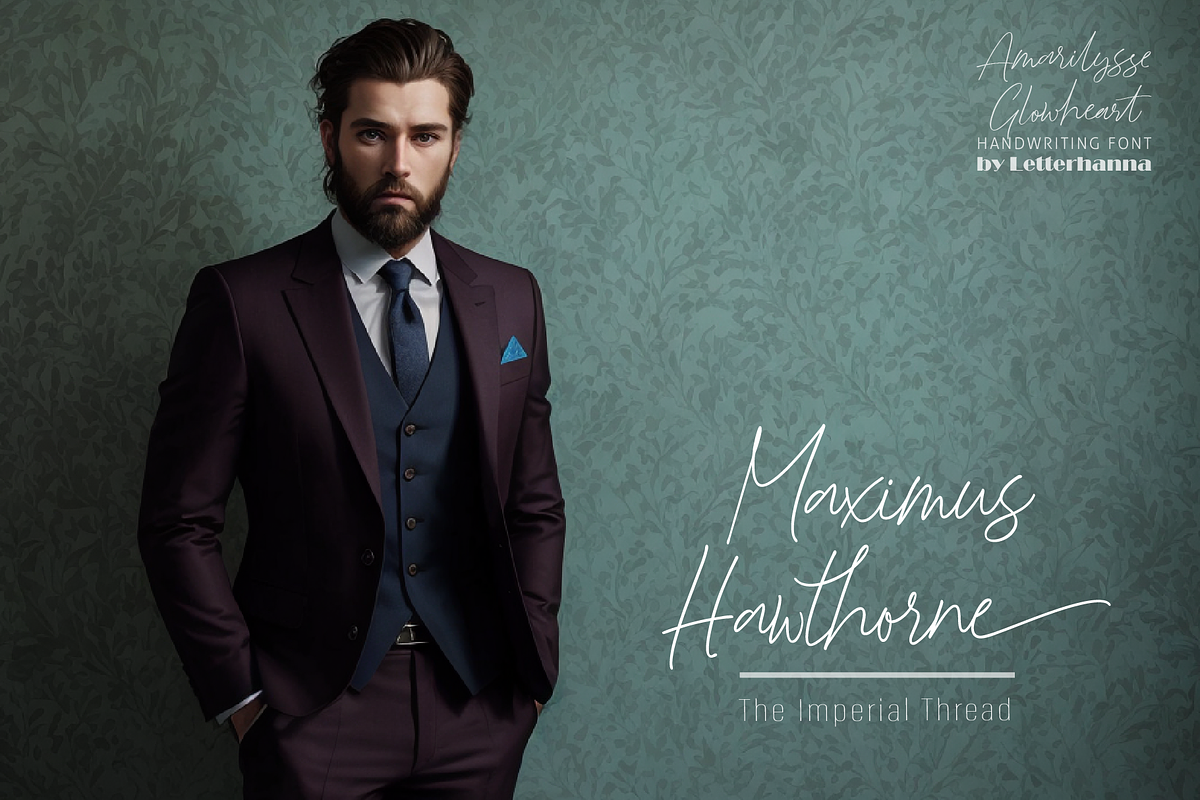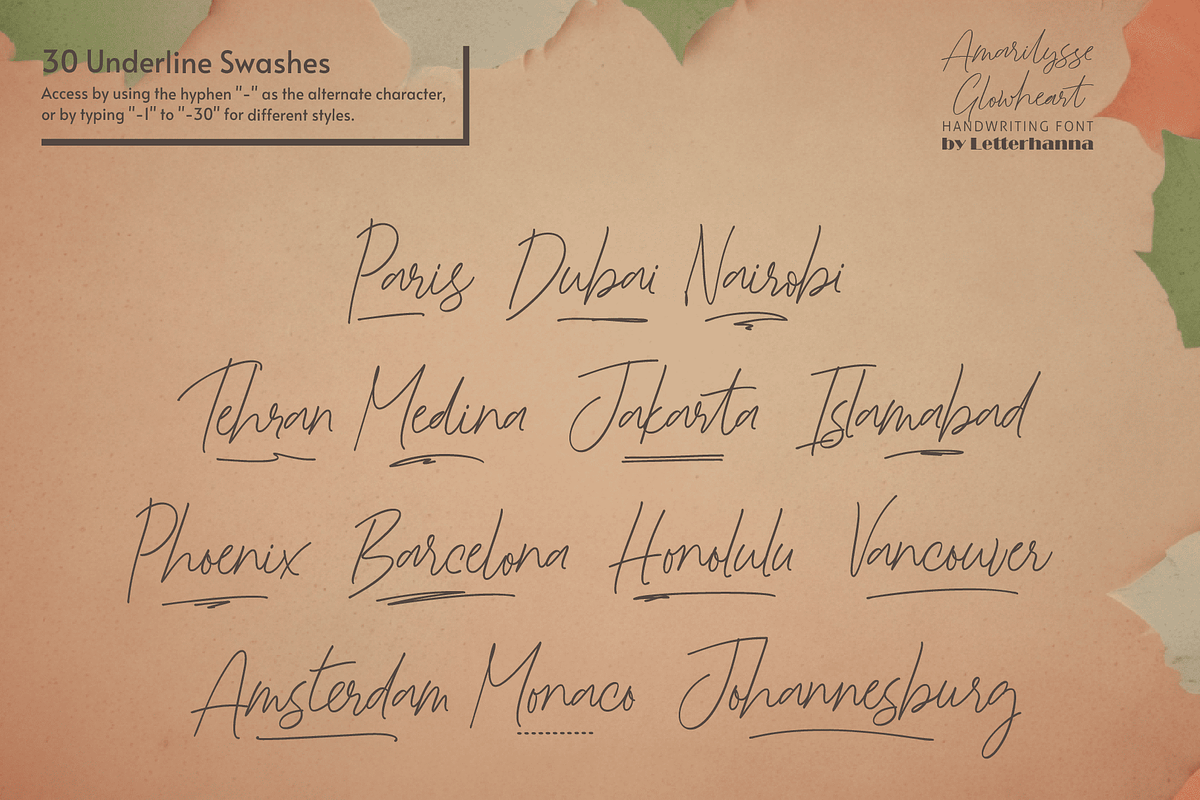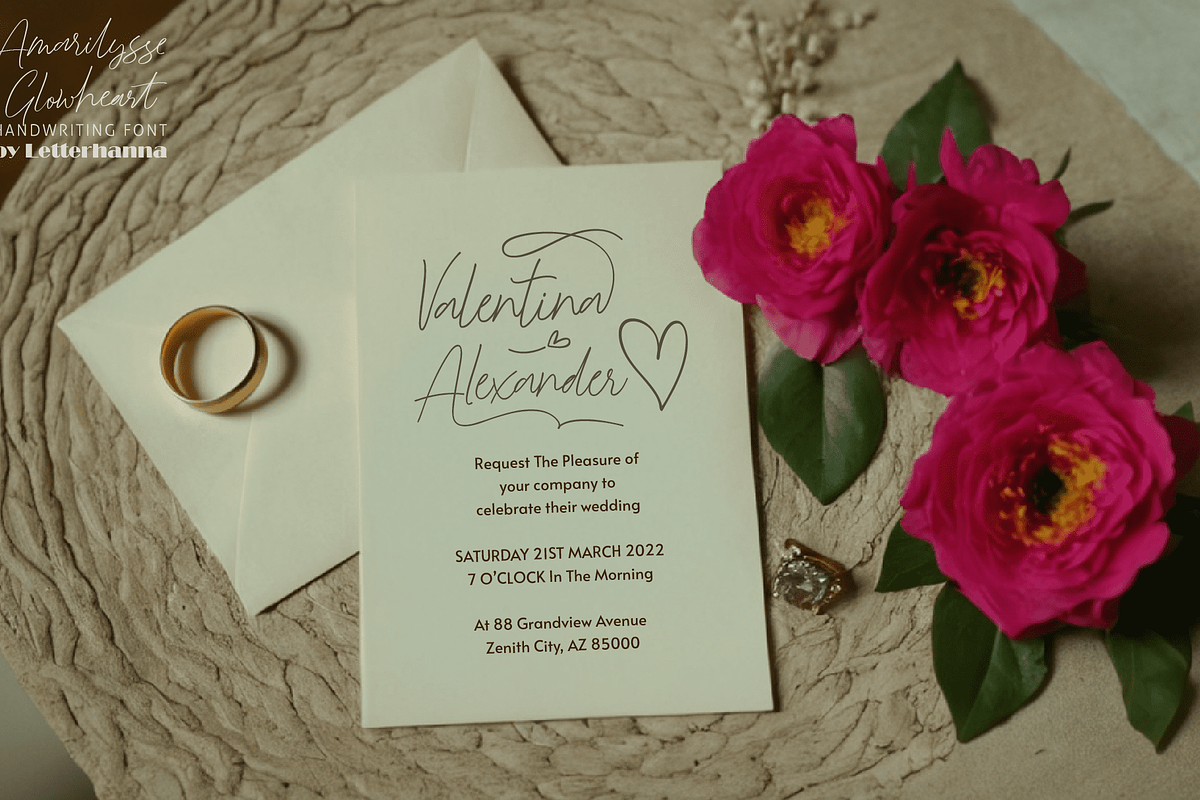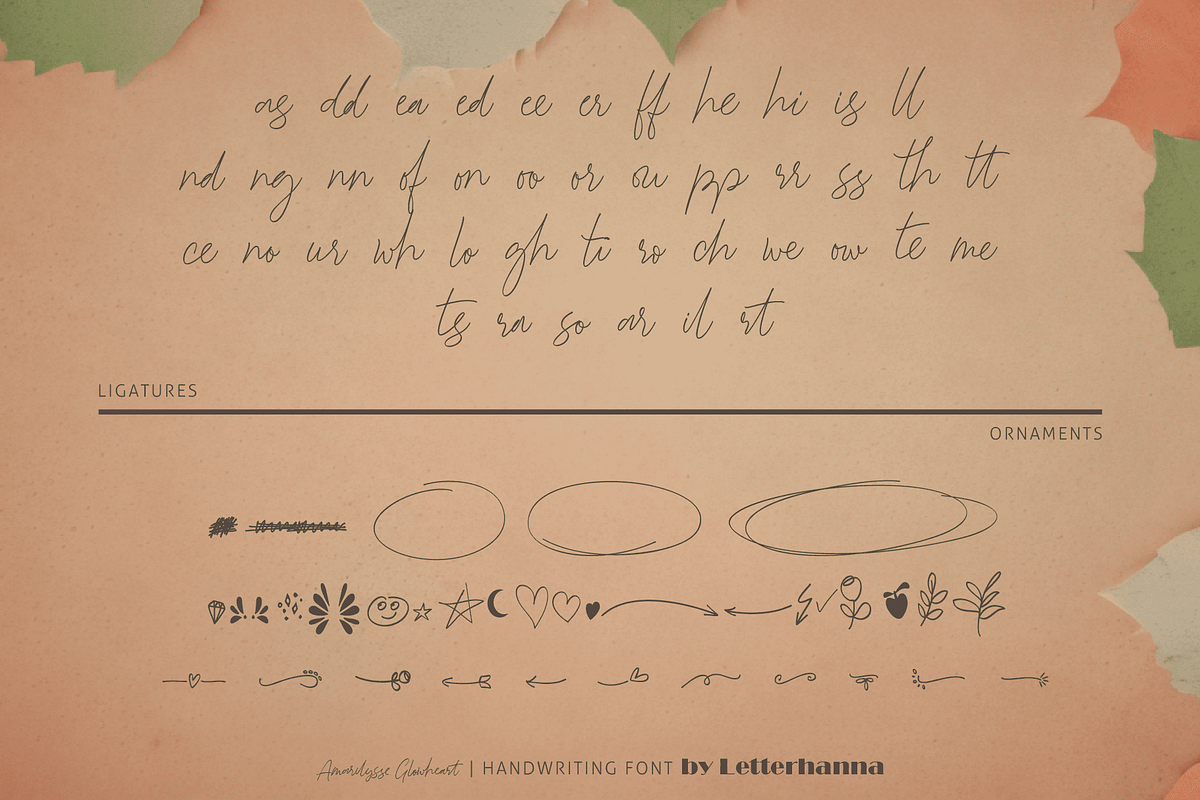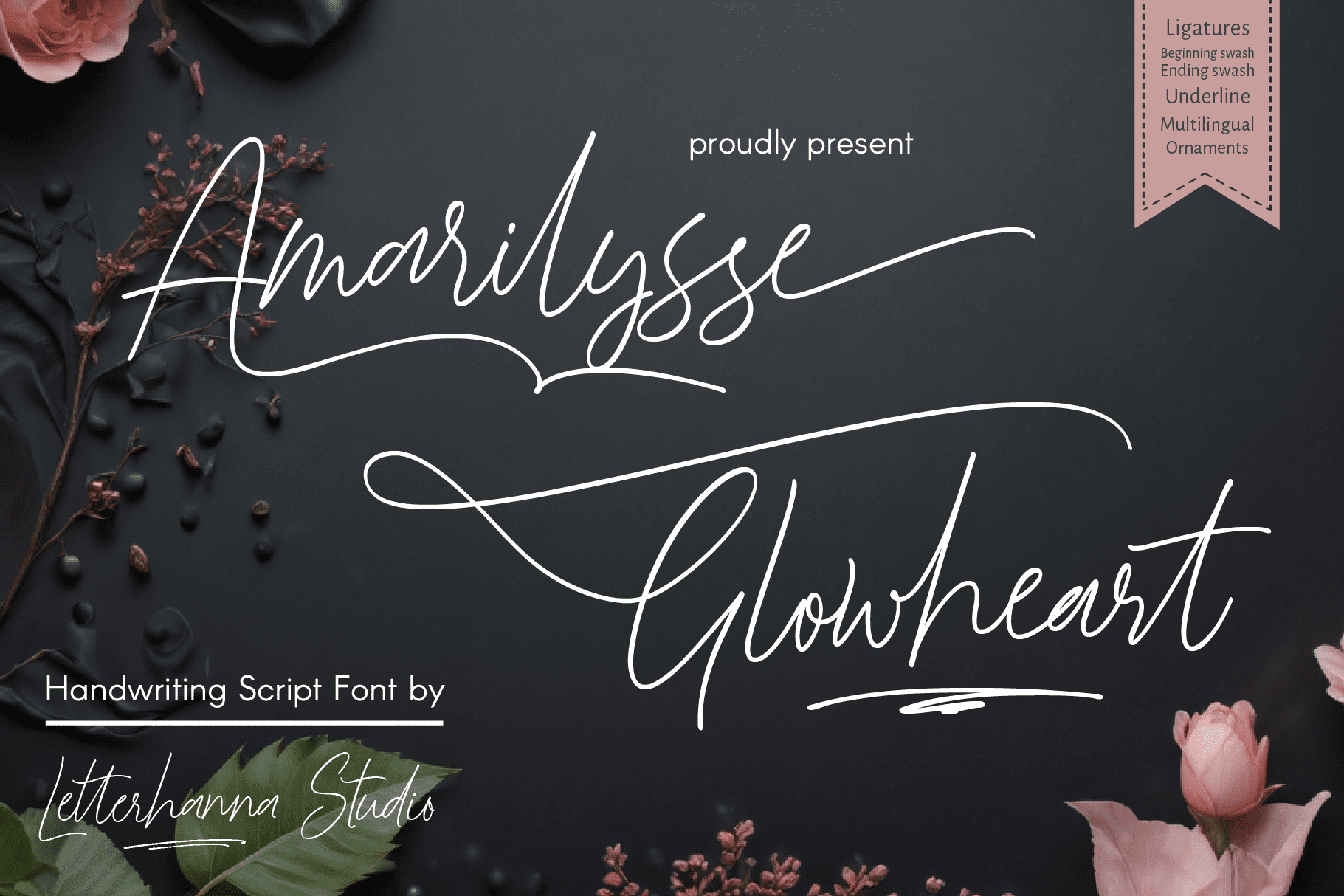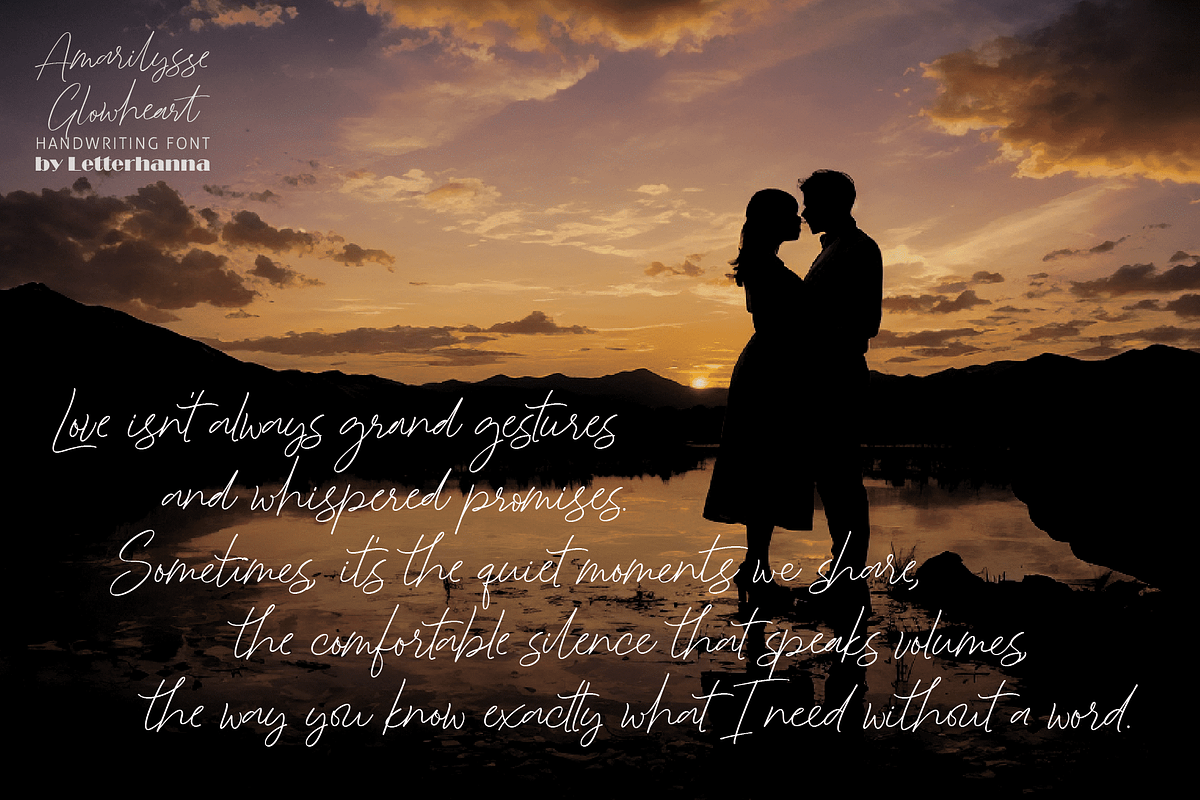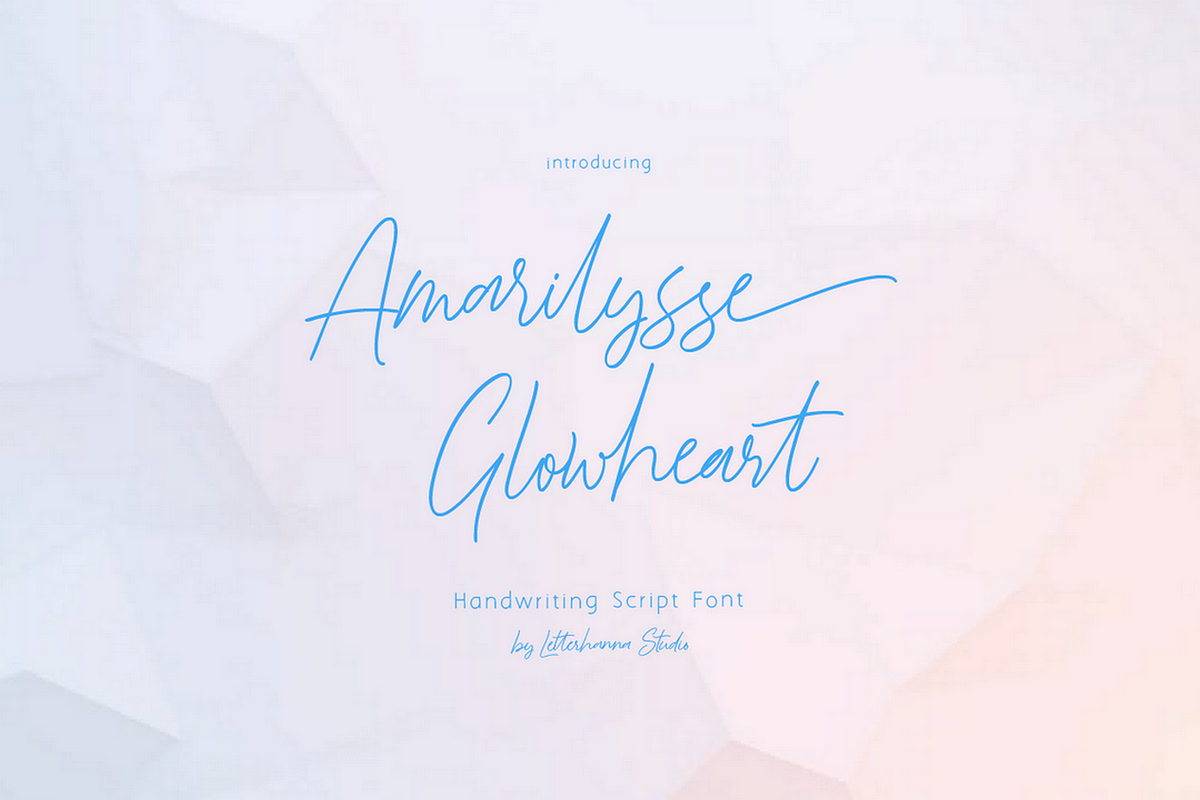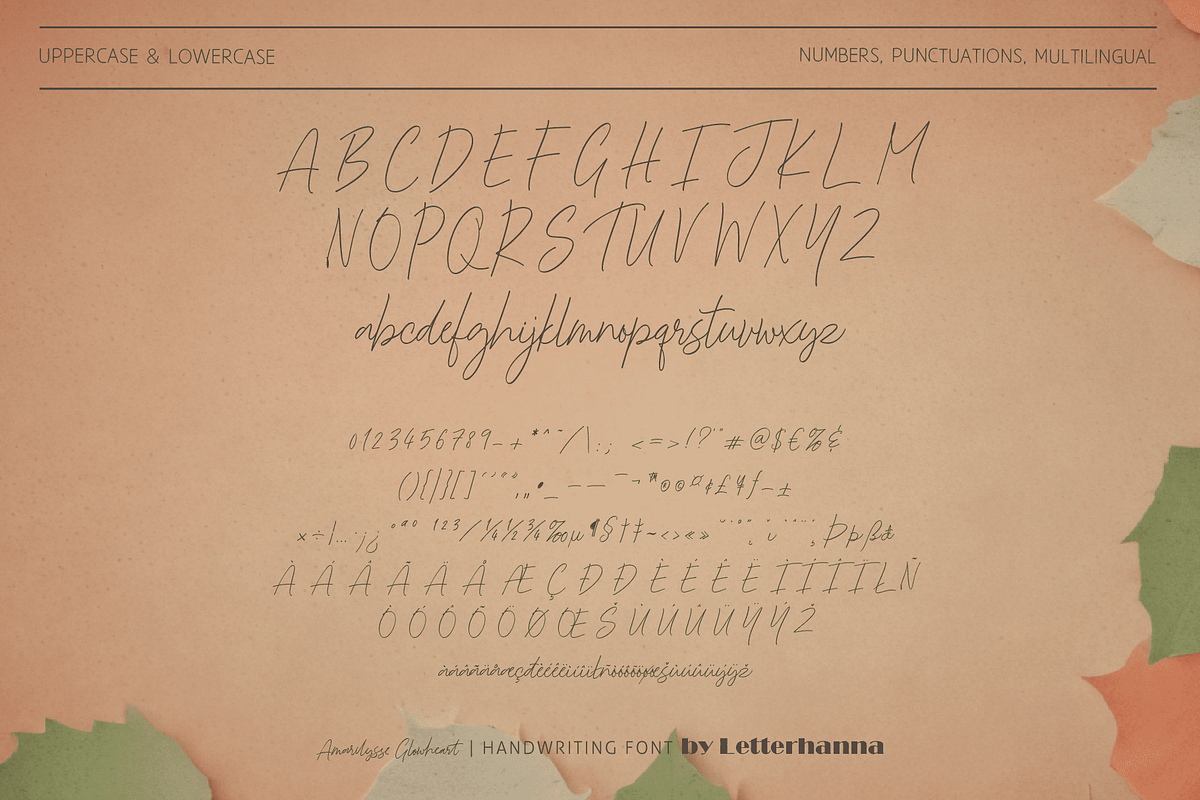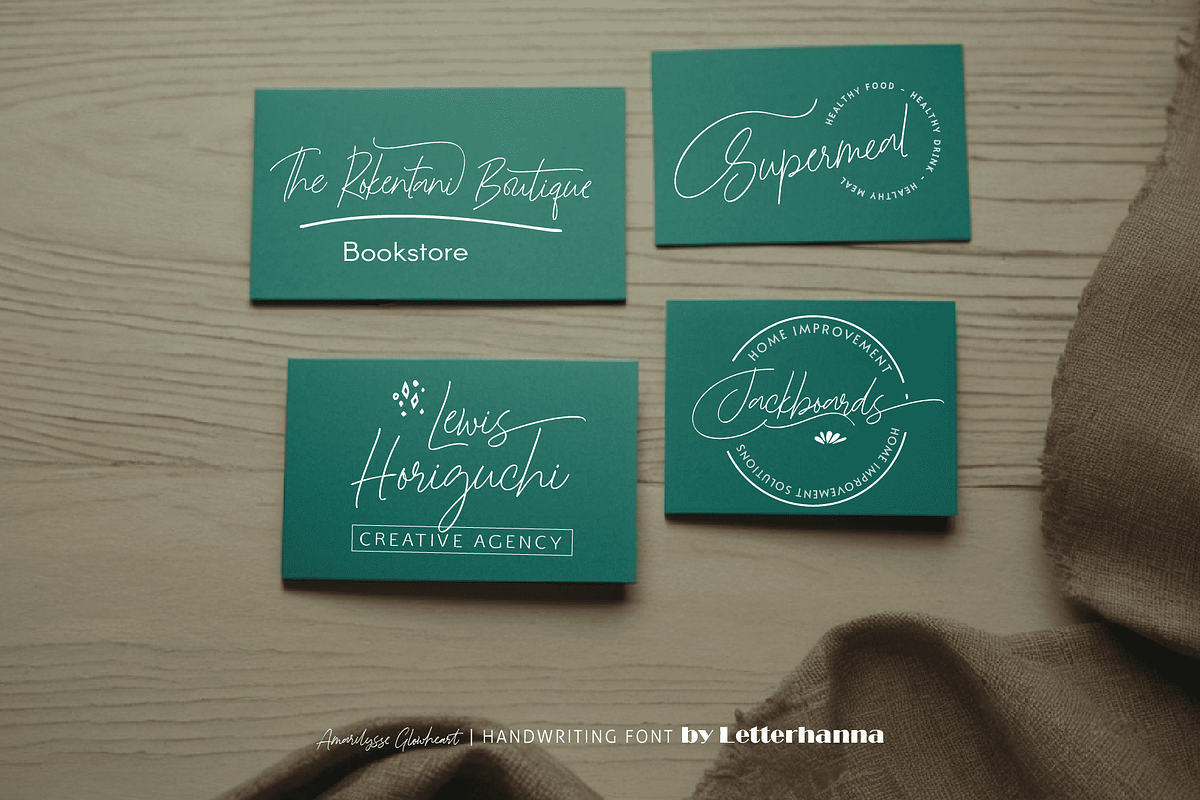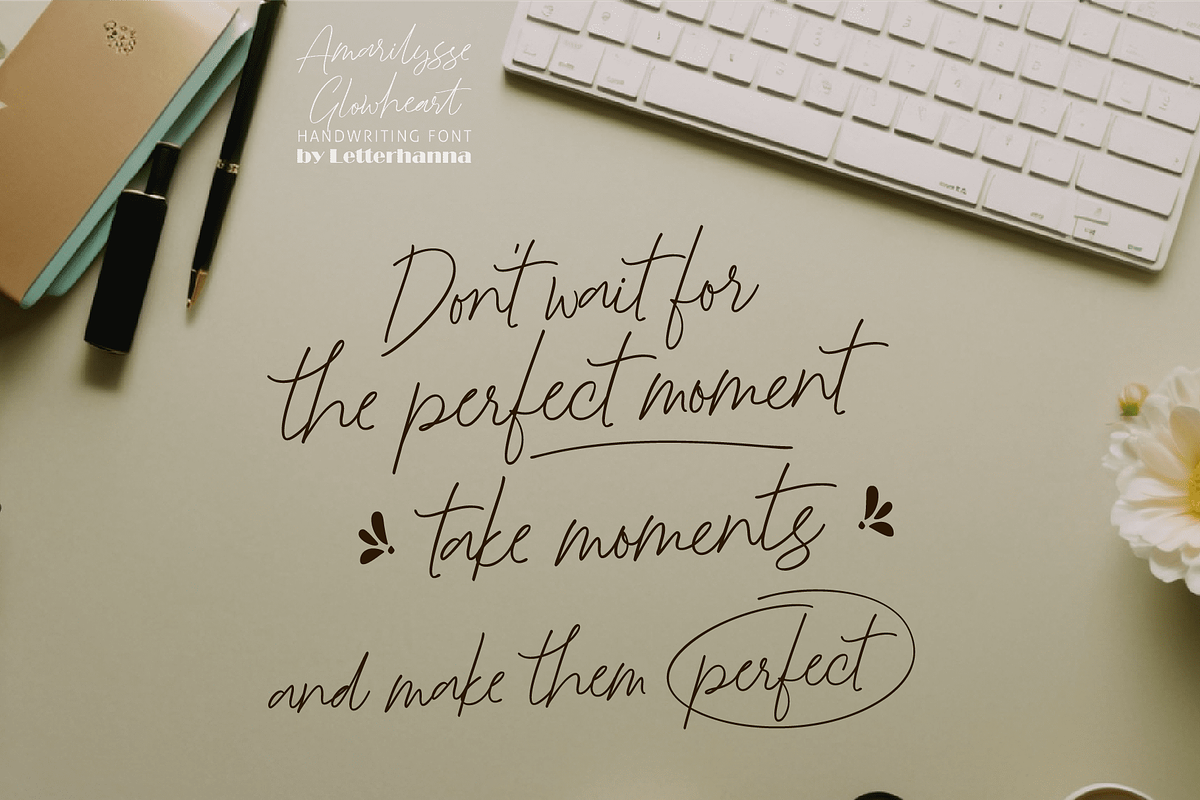
Amarilysse Glowheart Font
Introducing Amarilysse Glowheart, a handwriting script font that radiates elegance and warmth with its flowing curves and heartwarming strokes. Perfect for wedding invitations, branding, social media posts, and personal projects, this versatile font exudes the charm of natural penmanship. Featuring smooth connections, elegant ligatures, swashes, and multilingual support,
Amarilysse Glowheart is designed to make your designs unforgettable. Whether you're crafting romantic stationery, stylish logos, or captivating digital content, this font adds a touch of sophistication and creativity to every project. Unlock your creative potential with Amarilysse Glowheart and let your words shine!
Easy Access to Glyphs and Swashes
Accessing Swashes and Ornaments
Underline Swashes: Use a hyphen symbol "-" followed by a number between 1 and 30. For example, type "-3", "-22", or "-17" to get various underline swashes.
Head/Beginning Swashes: Use a dollar sign "$" followed by a number between 1 and 9. For example, type "$2" or "$8" to get different head/beginning swashes.
Tail/Ending Swashes: Use a percent sign "%" followed by a number between 1 and 30. For example, type "%3" or "%15" to get various tail/ending swashes.
Ornaments: Use an "at" symbol "@" followed by a number between 1 and 26. For example, type "@4" or "@13" to get different ornaments.
PUA Encoding for Ease of Use, which means you can access all the glyphs and swashes with ease!
Uppercase and lowercase letters
Numbers and punctuation marks
Beginning and ending swashes
Underline swashes
Ornaments
Easy access to swashes using ligatures